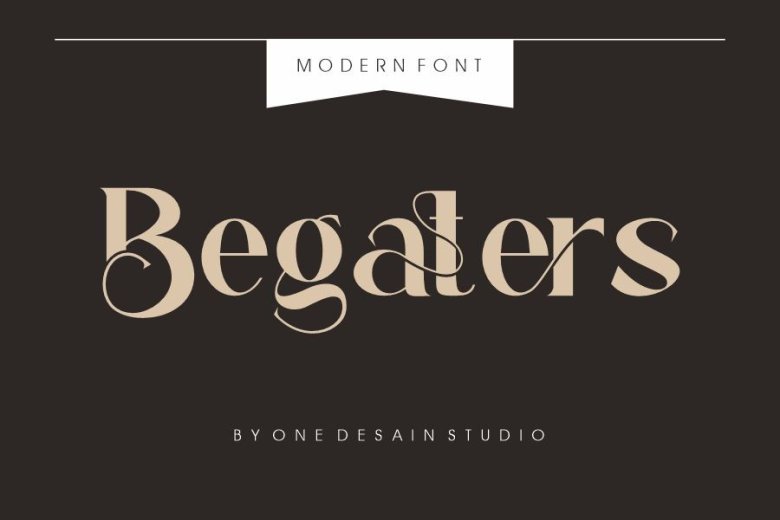
Begaters Font
Begaters is a chic and modern serif font. Perfect for logos, branding and social media posts, prints as well as shirts, stickers, SVG files and much more, Begaters stands out as being versatile enough to suit a range of styles; perfect for both boho designs free from restrictions as well as editorial designs!
Begaters Serif Font